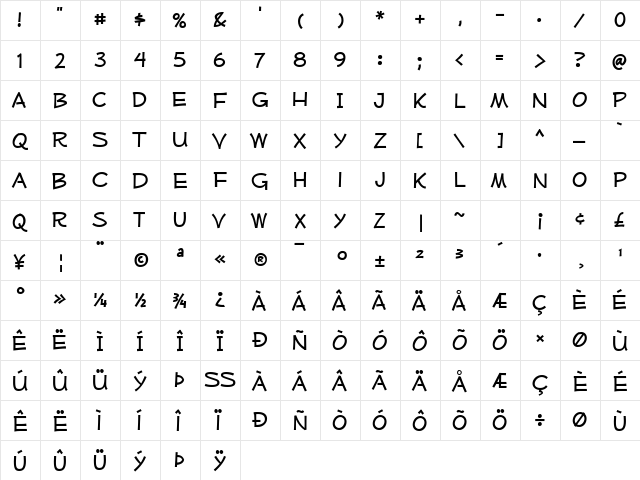
Mufferaw Regular Font Preview
Mufferaw Regular
Mufferaw Regular Font Details
Design Context for Mufferaw Typeface
Mufferaw offers clean, dependable letterforms without strong stylistic allegiance, making it a practical choice for designers who need flexibility.